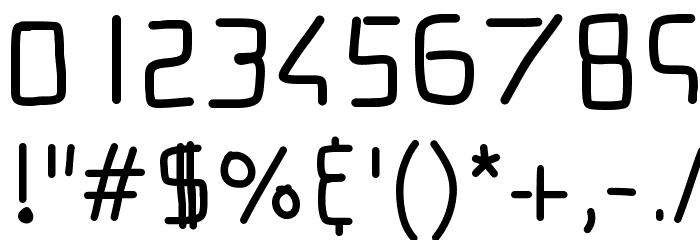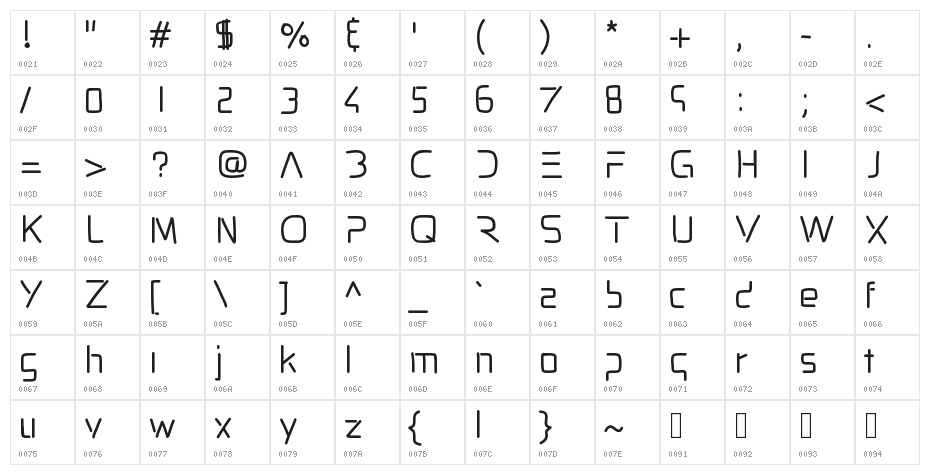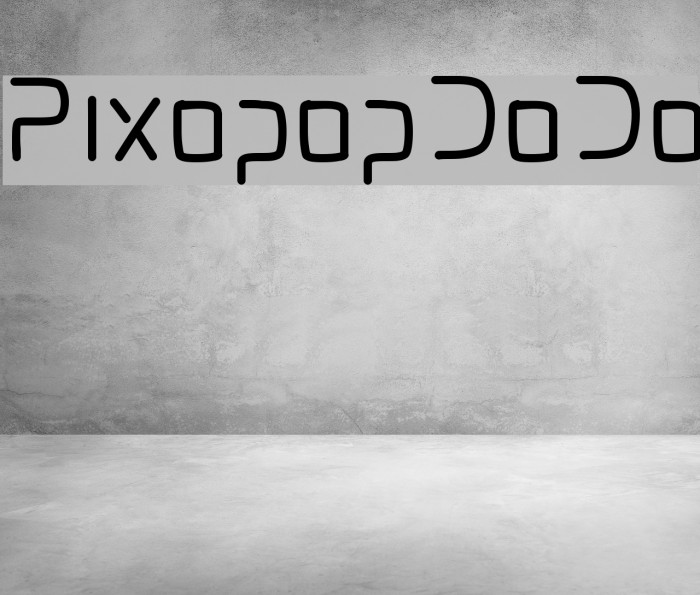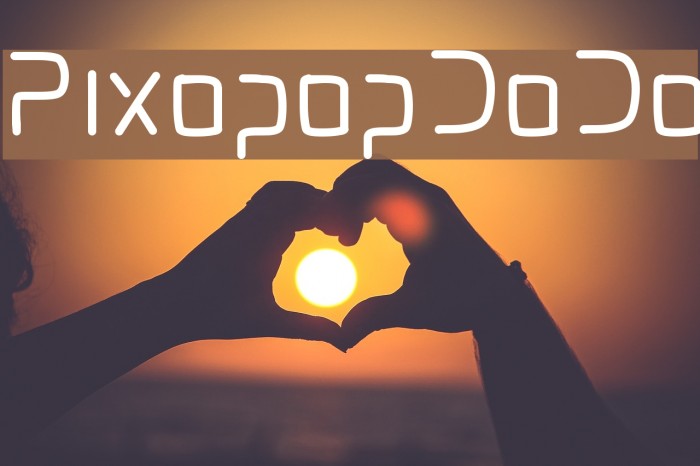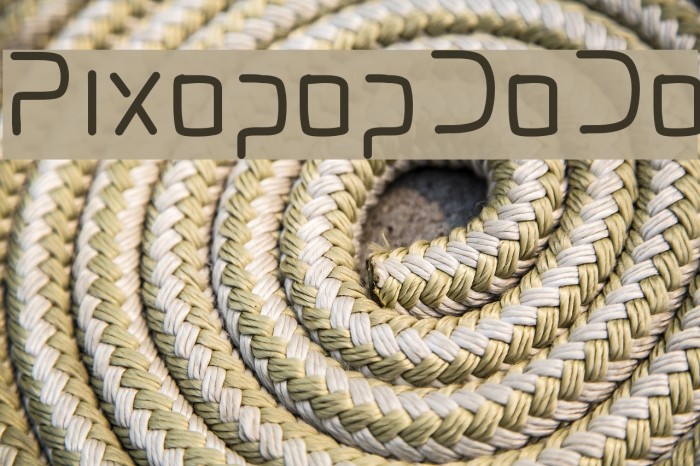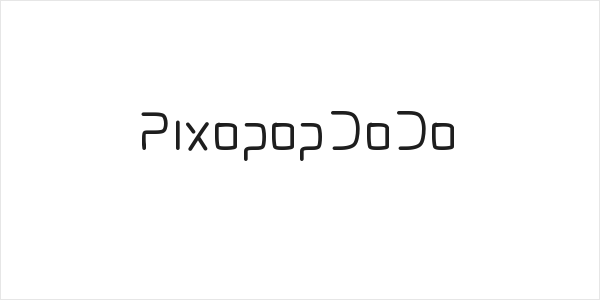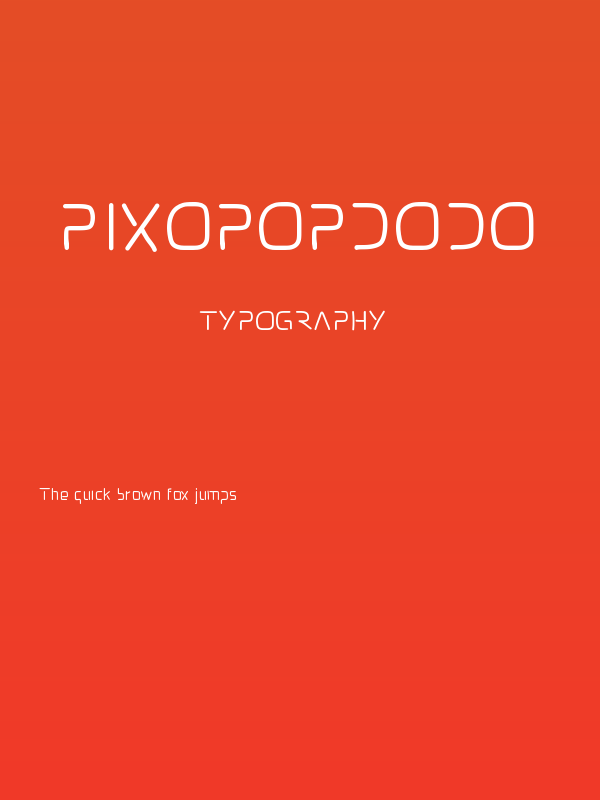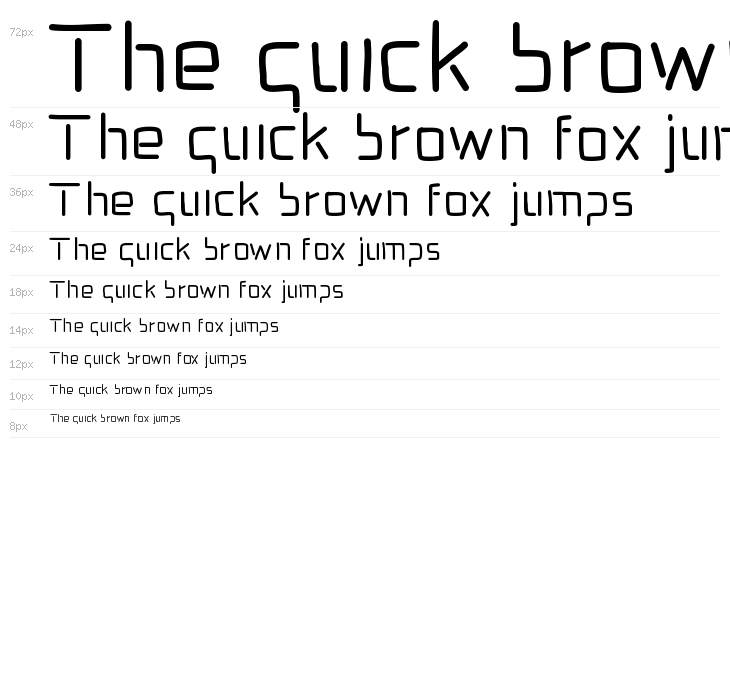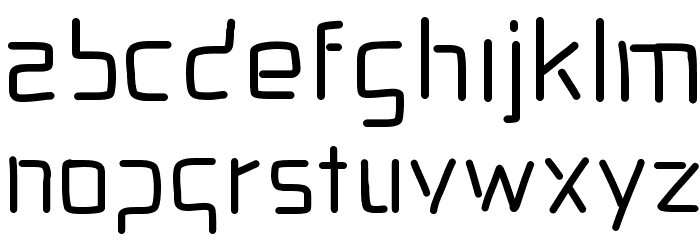
PixopopDoDo Font
PixopopDoDo Description
This font features a modern, rounded design with a futuristic appeal. The characters are composed of smooth, continuous lines that create a sleek and streamlined appearance. The uppercase and lowercase letters maintain a consistent height, contributing to a uniform look. The numbers and special characters follow the same design principles, ensuring cohesion across all elements. The font's simplicity and clarity make it highly legible, even at smaller sizes. Its geometric shapes and minimalistic style give it a contemporary feel, suitable for various digital and print applications.
| Proposed Projects | Ideal for tech branding, app interfaces, digital media, and modern advertising campaigns. |